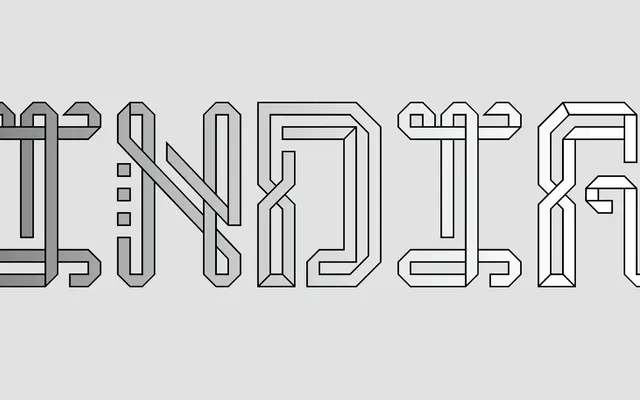
India specimen from A2-Type
An ornamental display face commissioned by Wallpaper* magazine in 2011, drawing on the geometric pattern language of Indian Kolam floor art.
Originally created as a custom typeface for Wallpaper* magazine's 'Reborn in India' issue, the family takes its visual cues from Kolam, a traditional South Indian practice of drawing intricate patterns on floors using rice or chalk. Two cuts are offered: Regular and Regular Solid, the latter filling in the patterned voids of the letterforms. The uppercase-only character set limits its use to display headings and titling work where the decorative geometry can read at scale.
An elaborate display face inspired by traditional Indian Kolam floor drawing and pattern art, with decorative geometric patterning built into each letterform, placing it firmly in the ornamental display category.